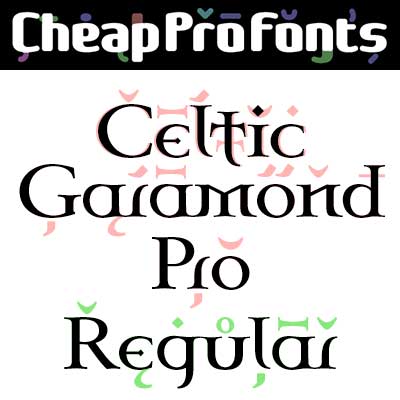
Celtic Garamond Pro Regular
Celtic Garamond Pro Regular by Levente Halmos
Levente Halmos
A classical proportioned text font - with a celtic twist! Perfect for that oldstyle look, but still very readable.
I have cleaned up the outlines, improved the spacing and kerning, modified a few letterforms - and then expanded the character set by 440%!
Celtic Garamond Pro Regular is a professionally reworked font that contains an extended character set for setting text in 65 languages requiring more than the basic A-Z!